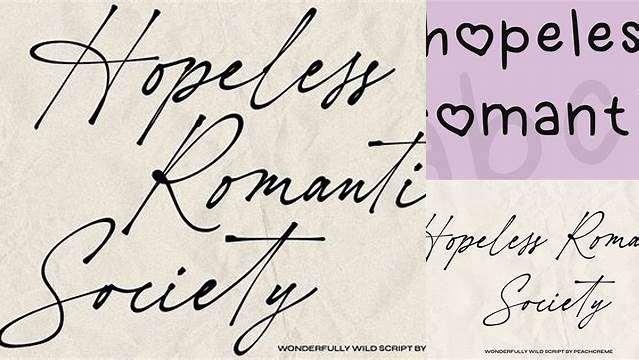
Hopeless Romantic Font: Free TTF Download Guide
Hey guys! Are you on the hunt for a font that perfectly captures that dreamy, whimsical, and oh-so-romantic vibe? Then you've probably heard about the Hopeless Romantic Society font. It's a super popular choice for everything from wedding invitations to branding projects, and even just adding a touch of elegance to your everyday designs. In this article, we're diving deep into everything you need to know about this beautiful typeface, including where to find it, how to use it, and some creative ways to incorporate it into your next project. So, let's get started!
1. What Makes Hopeless Romantic Society Font So Special?
What is it about the Hopeless Romantic Society font that makes it stand out from the crowd? Well, it's more than just a pretty typeface. It's a feeling, an aesthetic, and a statement all rolled into one. The flowing lines, the delicate curves, and the overall elegance of the font evoke a sense of timeless romance and sophistication. It's the kind of font that whispers sweet nothings and makes you want to curl up with a good book and a cup of tea.
The font's unique character is a major draw for designers and creatives looking to add a touch of personality to their work. Whether you're designing a wedding invitation, crafting a logo for a boutique, or creating social media graphics, the Hopeless Romantic Society font can help you achieve a look that's both classic and contemporary. The versatility of this font is another key factor in its popularity. It works well in both large and small sizes, and it pairs beautifully with a variety of other fonts. This means you can use it for headlines, body text, and everything in between. The charm and elegance of this font are undeniable, and it’s no wonder why so many people are searching for a free TTF download.
- FontSquirrel: FontSquirrel is known for its curated selection of high-quality free fonts. They carefully vet each font to ensure it's both free for commercial use and technically sound. This is a great option if you want to avoid the risk of downloading a font that's poorly designed or has licensing restrictions.
When exploring these websites, use keywords like “script font,” “calligraphy font,” or “romantic font” to narrow down your search and find fonts that are similar to the Hopeless Romantic Society font. Remember to always read the licensing information carefully before downloading any font to ensure it meets your needs.
4. Understanding Font Licensing: What You Need to Know
Speaking of licensing, let's delve a little deeper into this important topic. Font licensing can be a bit confusing, but it's crucial to understand the terms before you start using a font in your projects. Using a font without the proper license can lead to legal trouble, so it's always better to be safe than sorry. There are two main types of font licenses you'll encounter:
- Personal Use License: This type of license allows you to use the font for personal projects, such as creating invitations for a birthday party or designing a scrapbook. You typically cannot use the font for any commercial purposes, such as creating a logo for your business or designing marketing materials.